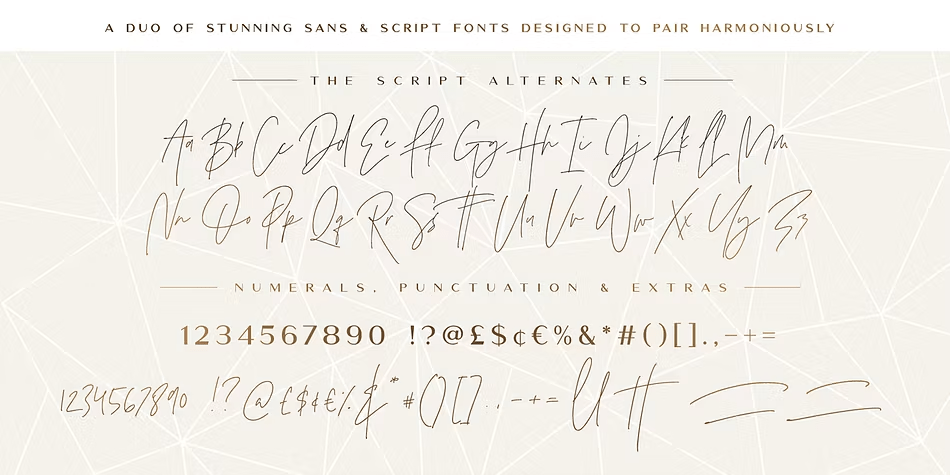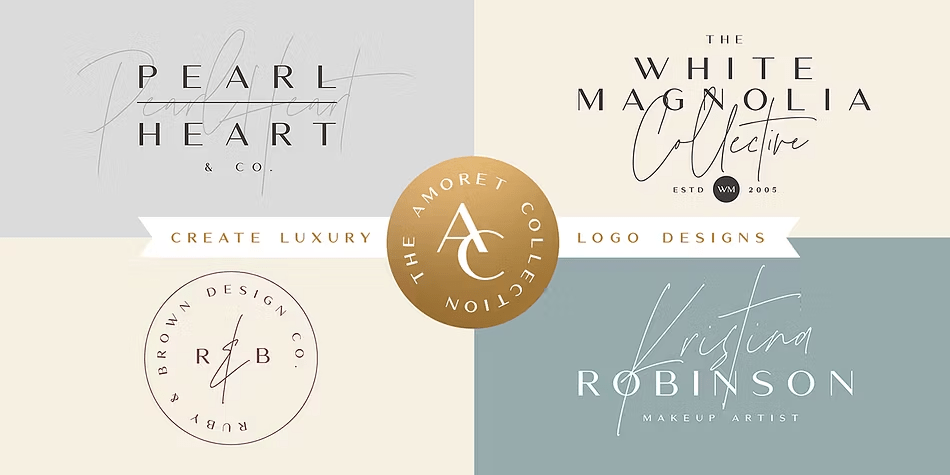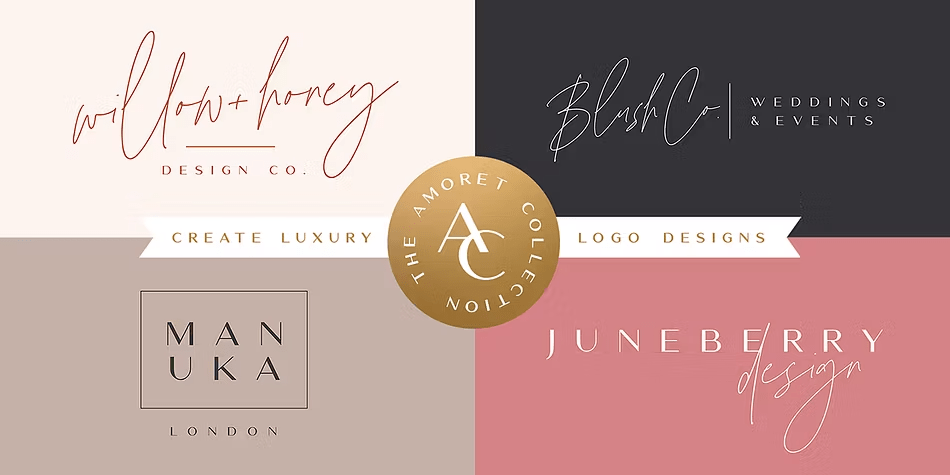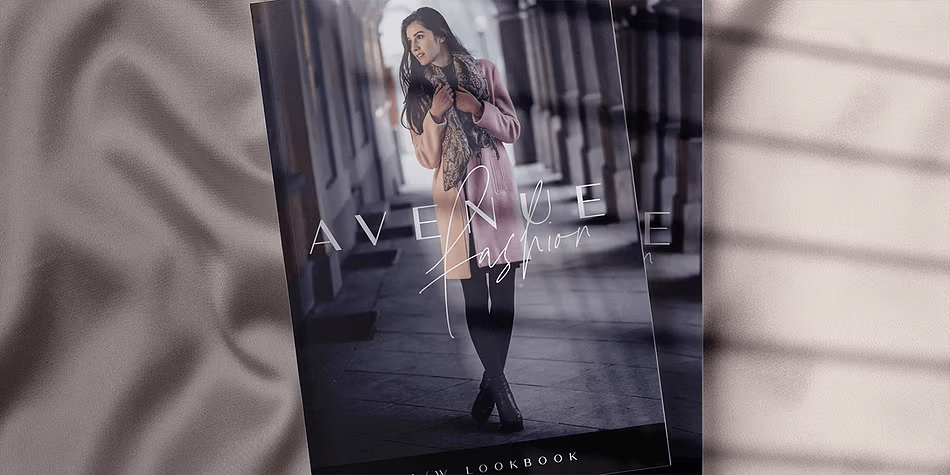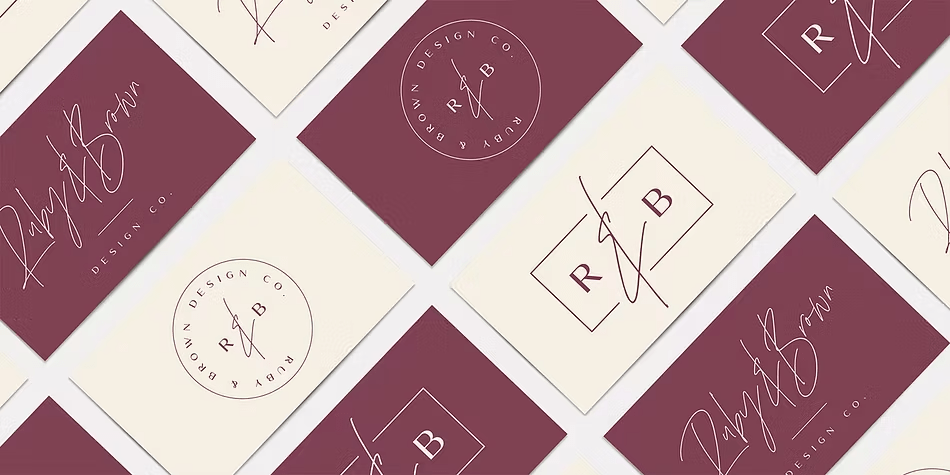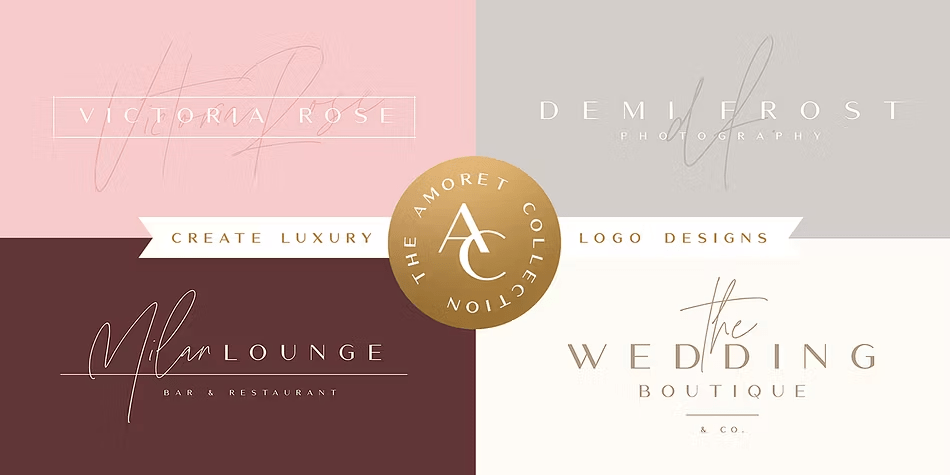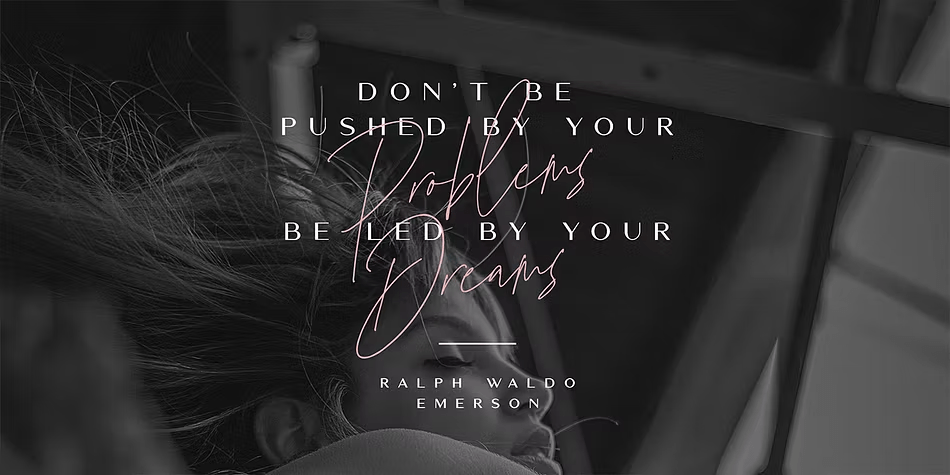
Amoret
Amoret is a 3-style font family from Set Sail Studios that pairs a clean, refined sans with flowing script styles for a look that feels airy, delicate, and distinctly modern. Its mix of thin strokes, calligraphic movement, and sharp, elegant structure gives it a polished voice that can read as feminine, stylish, and sophisticated.
With Amoret Sans Regular, Amoret Script Regular, and Amoret Script Alt, this family offers a flexible combination for layered typography and contrast-driven layouts. Use it for branding, packaging, invitations, social graphics, editorial styling, or decorative display work where you want a balance of minimalist clarity and graceful handwritten character.